Fancy Letter H Font
Every fancy font style rendered for just the letter H, so you can compare them side by side before picking one for an initial, a logo, or a single-character tag.
The Letter H in Every Style
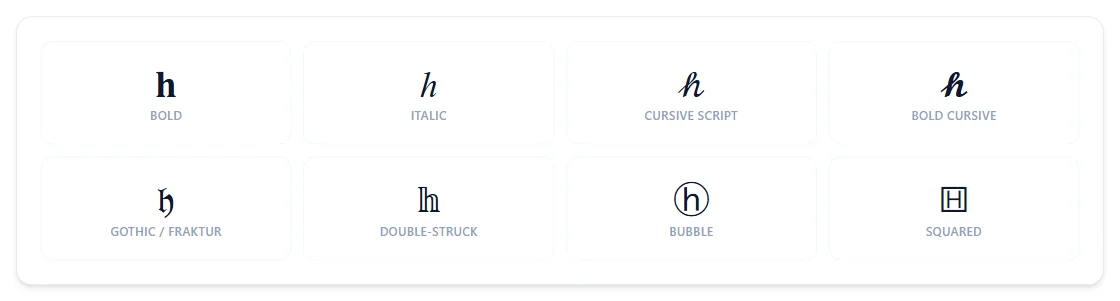
H borrows more famous stand-in symbols than any other letter here: lowercase italic h is ℏ (the reduced Planck constant from physics), script H is ℋ (a Hamiltonian symbol), Fraktur H is ℌ, and Double-Struck H is ℍ (the quaternions symbol) — and, fittingly, H is also one of the letters that looks identical upside down.
Why do so many H styles look like physics or math symbols?
H happens to have borrowed characters in italic (ℏ, Planck's constant), script (ℋ), Fraktur (ℌ), and double-struck (ℍ, quaternions) — more than any other letter, because those symbols already existed in Unicode before the newer alphanumeric block was added.
Does H look the same upside down?
Yes — H is symmetrical enough that rotating it 180 degrees produces the same shape.